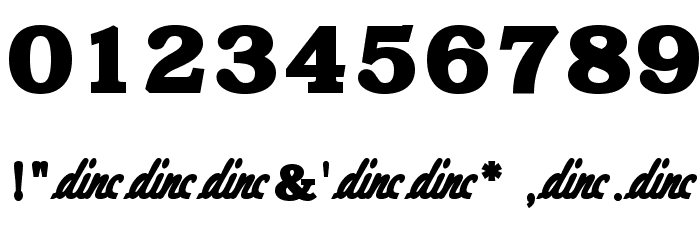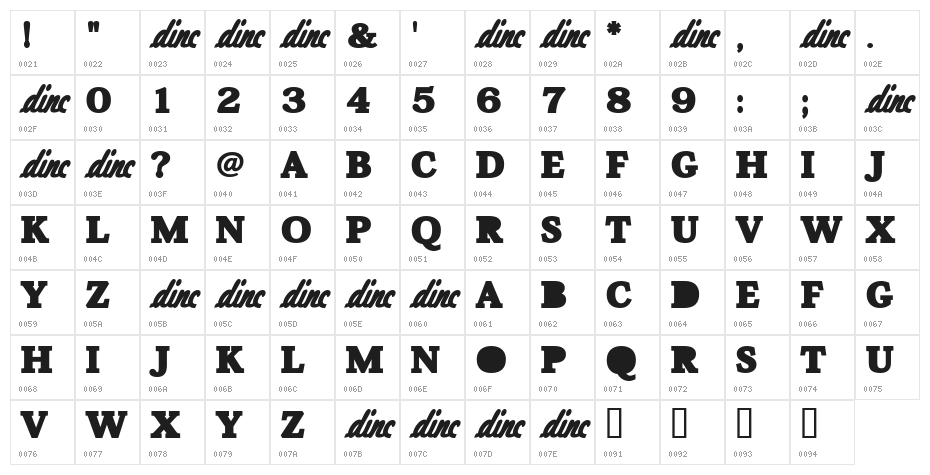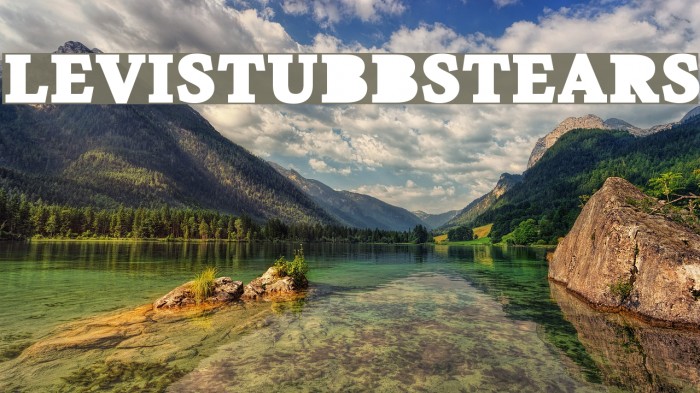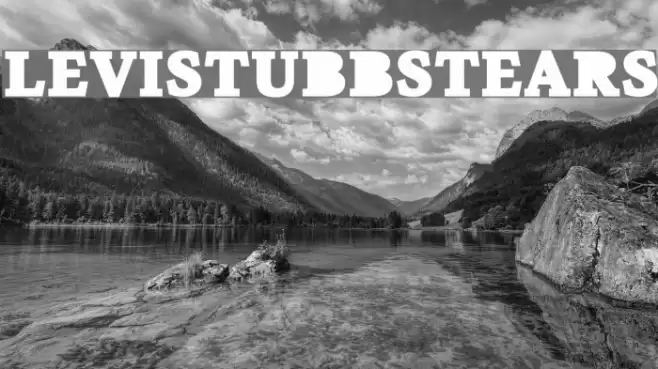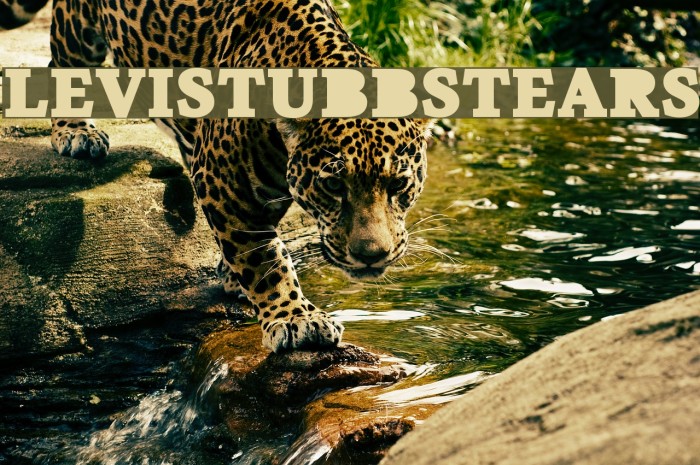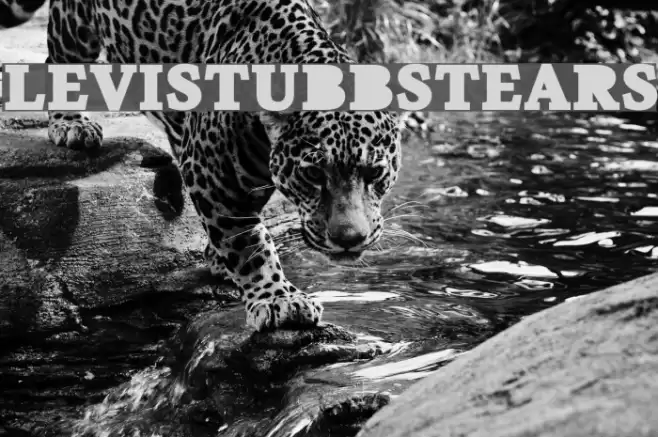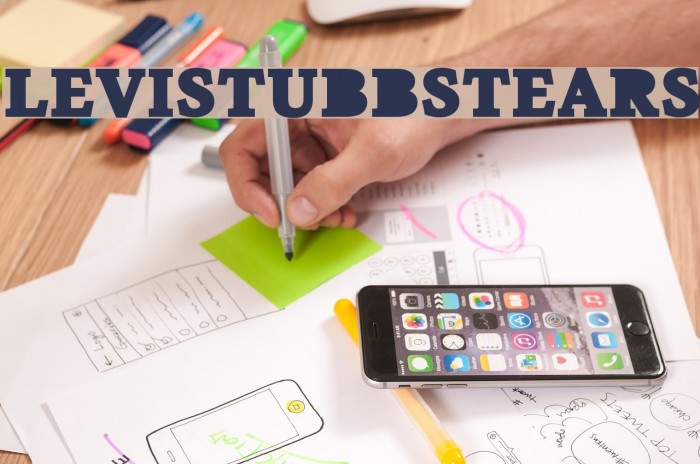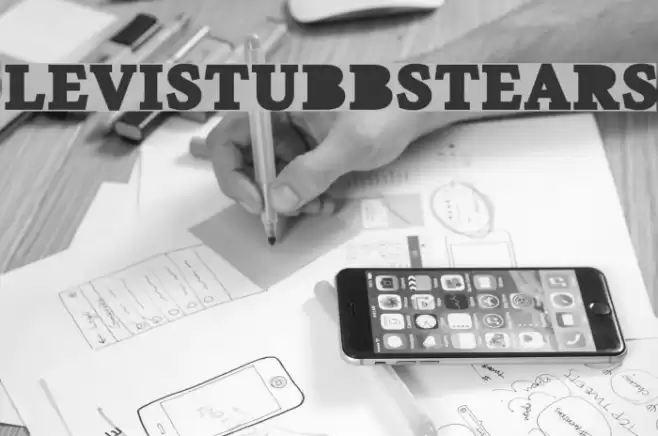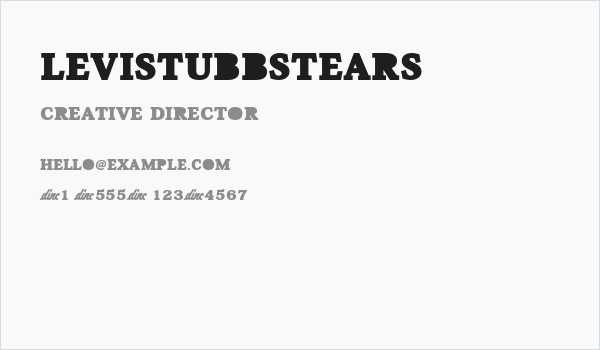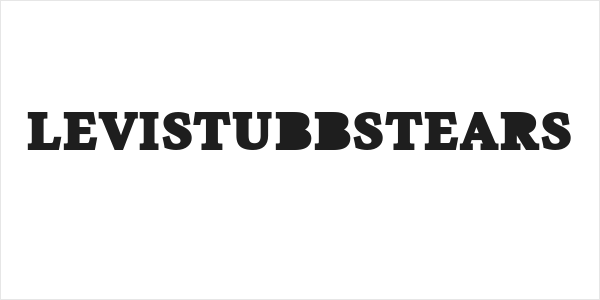
LeviStubbsTears Font
LeviStubbsTears Description
This font exhibits a bold and impactful style with thick, uniform strokes that create a strong visual presence. The characters are well-defined with a slight curvature, giving them a modern yet classic feel. The uppercase letters are particularly striking, with a consistent height and width that ensures readability. The lowercase letters maintain the same boldness, offering a cohesive look across different text sizes. Numbers are equally robust, making them suitable for attention-grabbing displays. The special characters retain the same bold characteristics, ensuring they stand out in any composition.
| Proposed Projects | Ideal for headlines, posters, branding, and any project requiring a strong visual impact. |